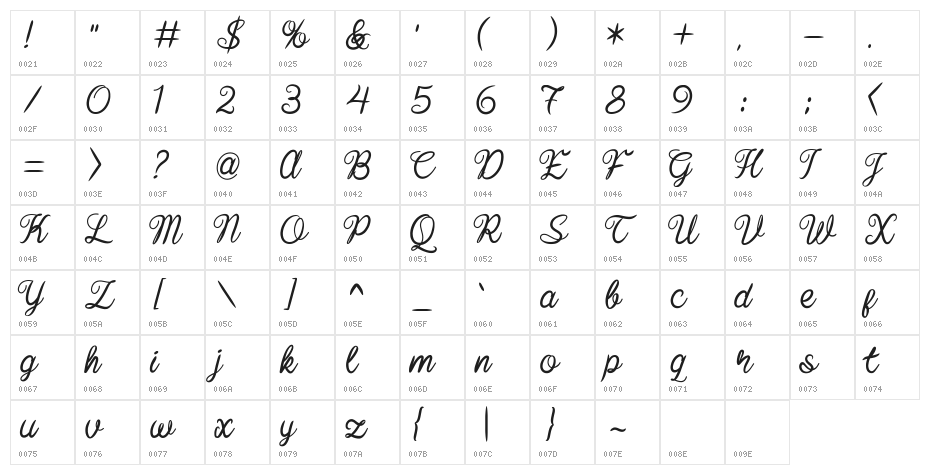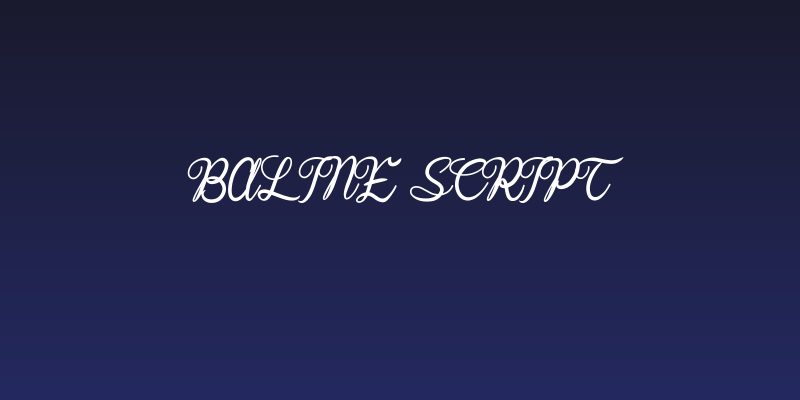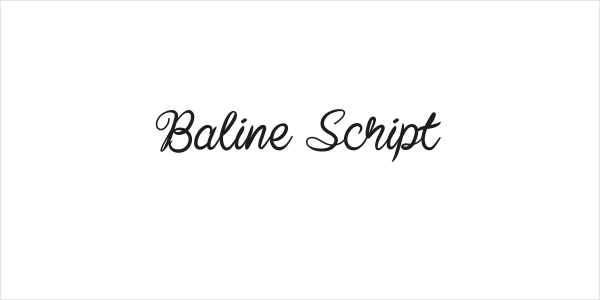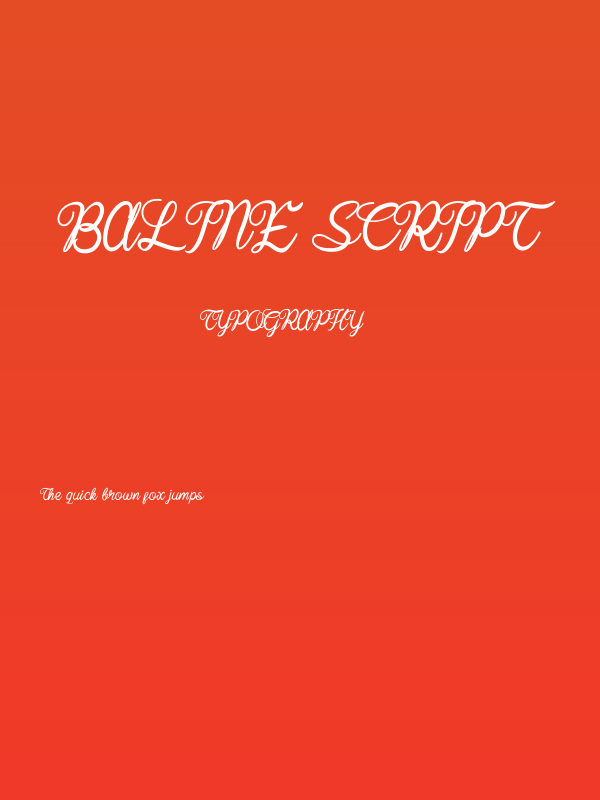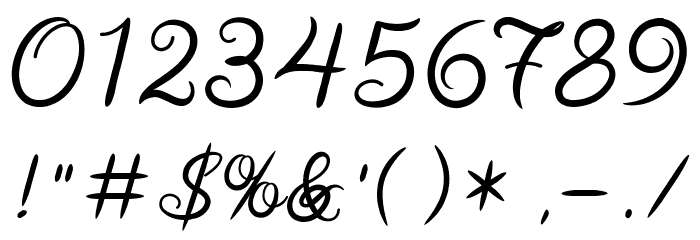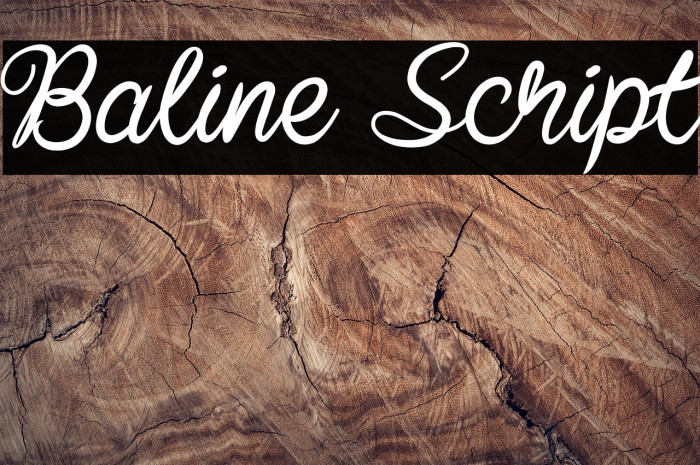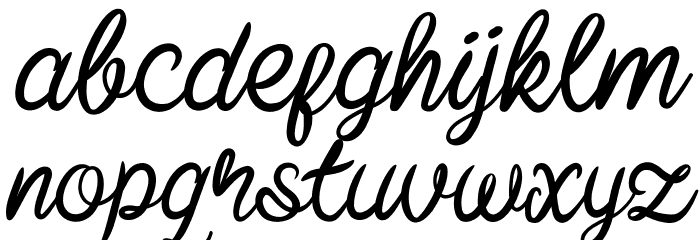
Baline Script Font
Baline Script Description
This font exudes a playful and elegant script style, characterized by its fluid, connected strokes that mimic the natural flow of handwriting. The uppercase letters are bold and slightly slanted, giving a sense of movement and dynamism. The lowercase letters maintain a consistent rhythm, with smooth curves and loops that enhance readability. The numerals are distinct, with a slight flourish that complements the overall script style. Special characters are crafted with the same attention to detail, ensuring they blend seamlessly with the alphabetic characters. This font is perfect for projects that require a touch of sophistication and personality.